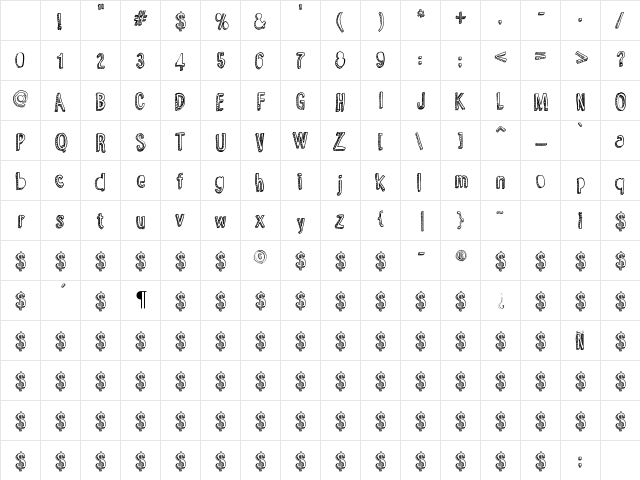
Complete Yummy Lollipop Regular glyph index. Displaying only characters natively supported by Yummy Lollipop Regular font.
Yummy Lollipop is a composed and adaptable typeface that performs quietly and consistently across a wide range of design contexts.